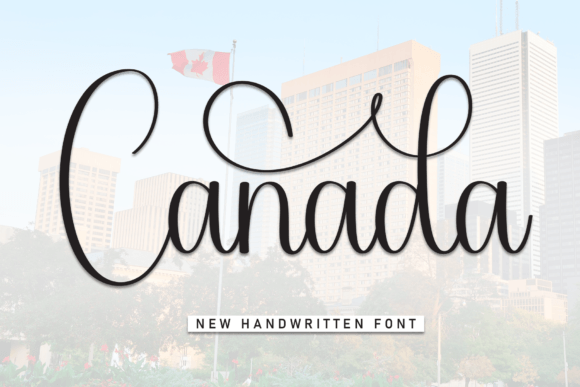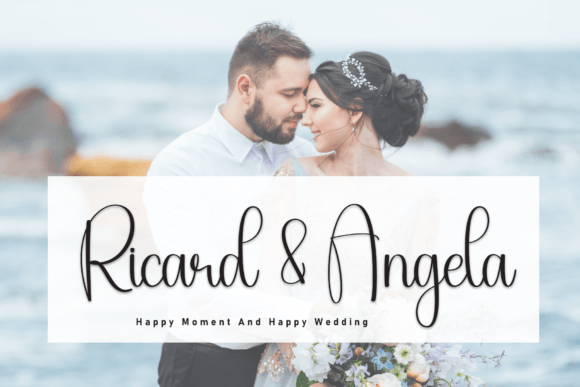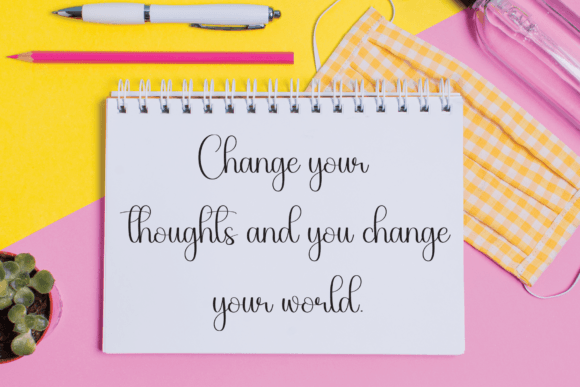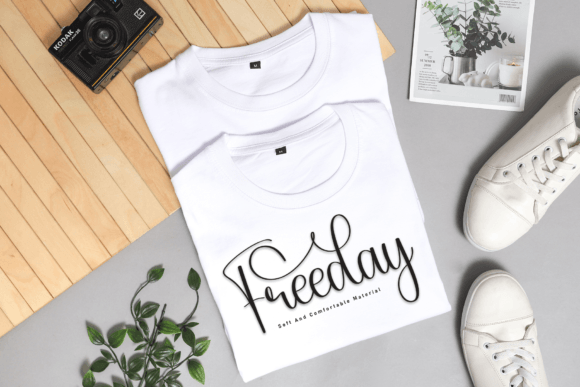
Canada Font
About the Canada Font
Make a bold statement with Canada Font, a powerful and memorable font. Canada is a stylish and incredibly elegant script font. It looks stunning on wedding invitations, thank you cards, quotes, greeting cards, logos, business cards and every other design which needs a handwritten touch.
Canada’s elegant, flowing forms are ideal for branding projects requiring a touch of sophistication, particularly logos, stationery, and short-form marketing materials. Its graceful script works exceptionally well in headlines and short text blocks on wedding invitations or similar high-end applications. However, its intricacy makes it unsuitable for body text or UI elements where readability is paramount.
For optimal visual impact, pair Canada with a clean sans-serif like Montserrat for a modern feel, or a classic serif such as Garamond for a more traditional aesthetic. A geometric sans-serif like Futura could also create a striking contrast, enhancing Canada’s calligraphic qualities.
The overall personality of Canada is sophisticated and romantic, lending itself to brands focused on luxury, artistry, or personal expression. Avoid using it in contexts demanding strong legibility or a contemporary, minimalist style.